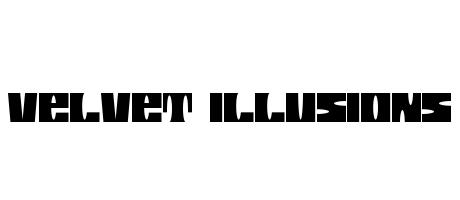
Velvet Illusions
Velvet Illusions, a bold, sans-serif typeface, exudes a retro-futuristic vibe. Its chunky, uppercase letters possess a strong, almost monolithic presence. The consistent width of the characters creates a sense of uniformity while slight variations in letterforms add subtle visual interest. The overall effect is powerful and eye-catching.